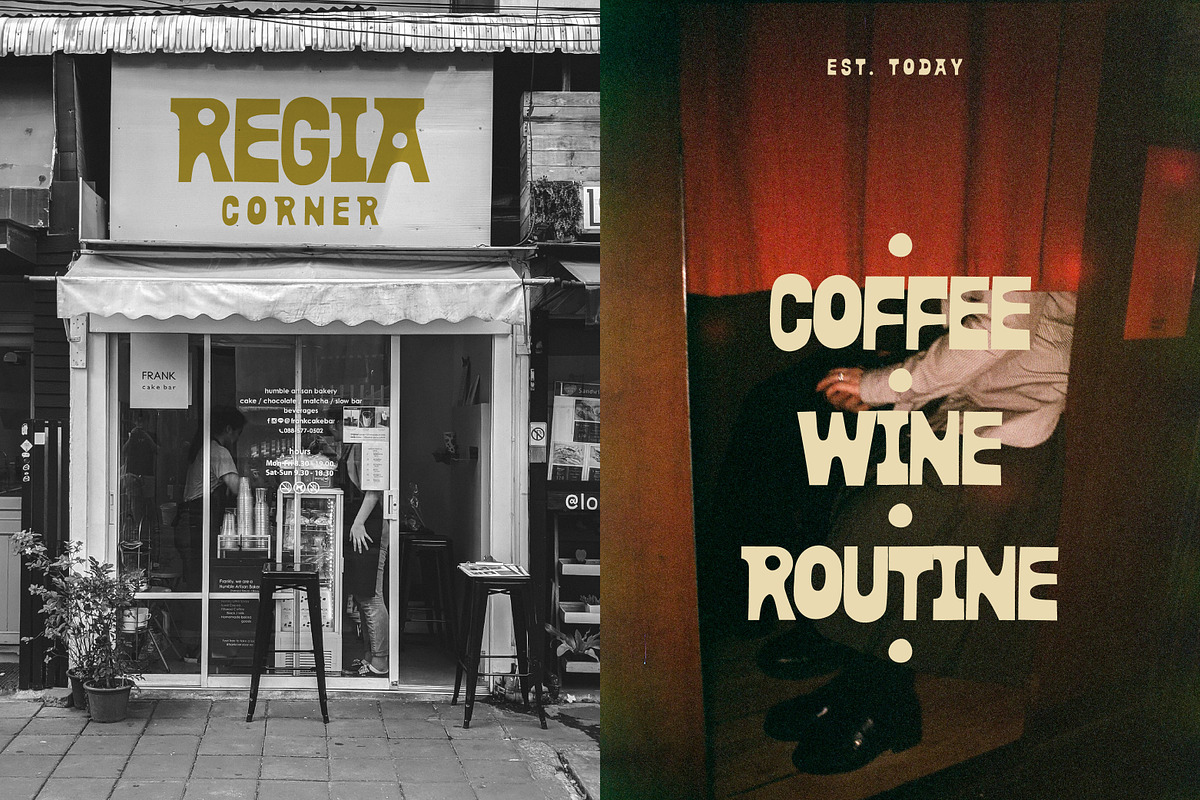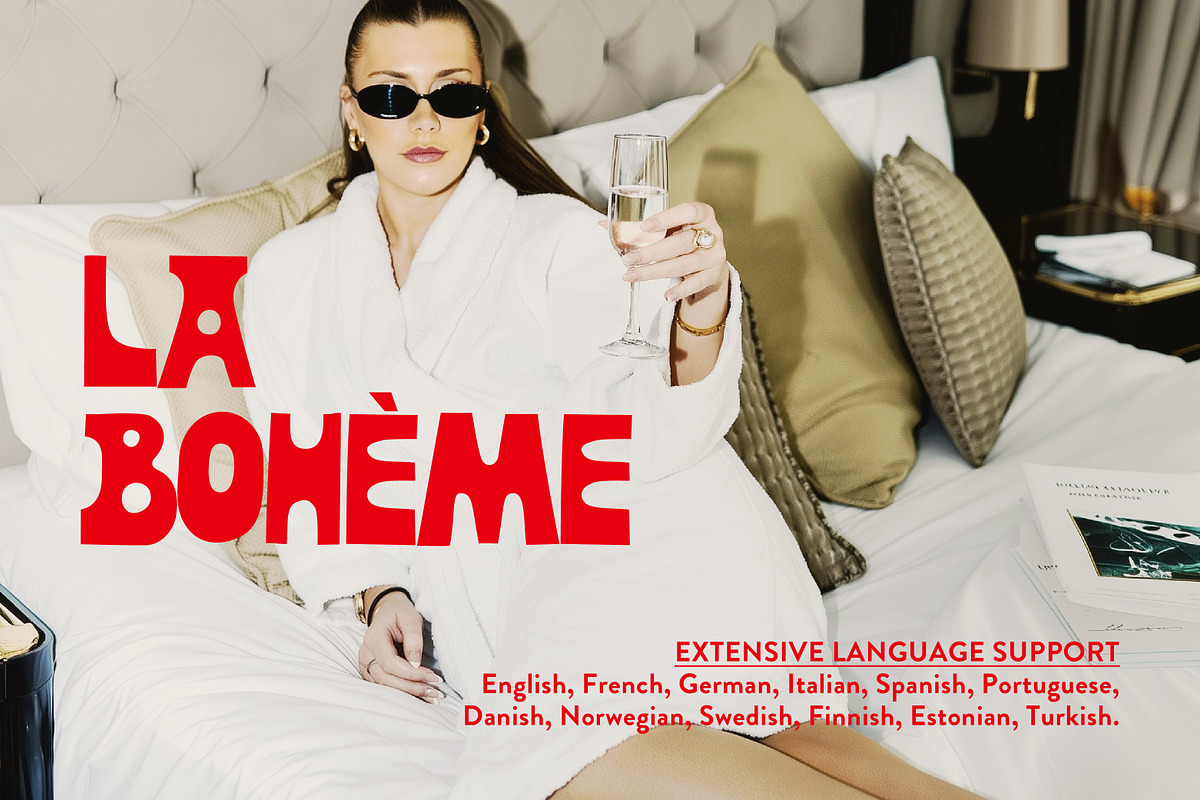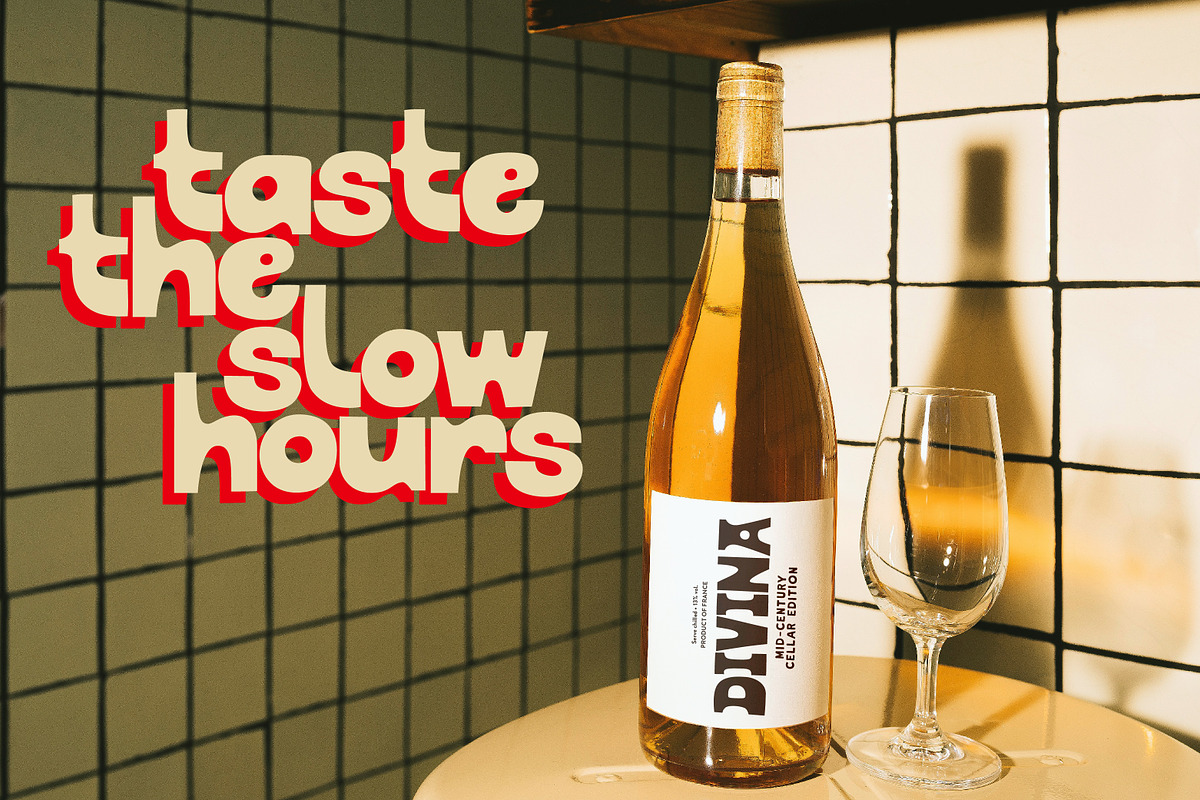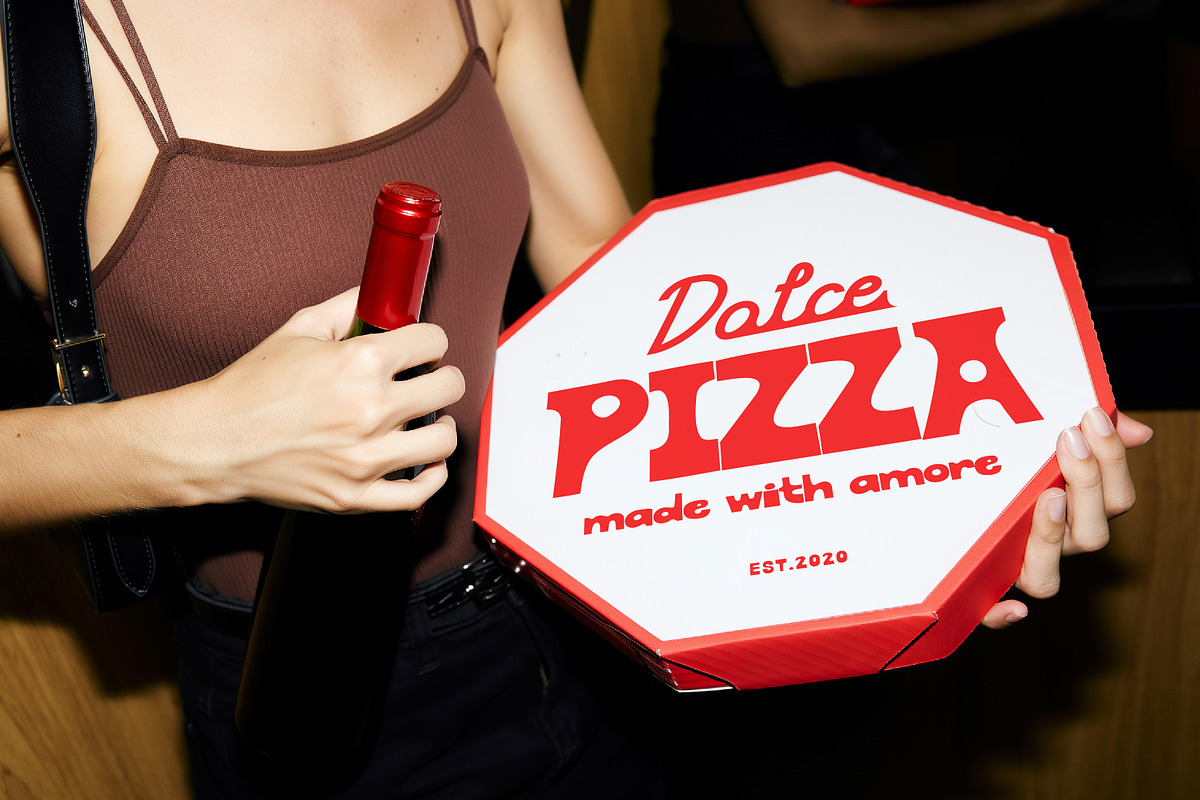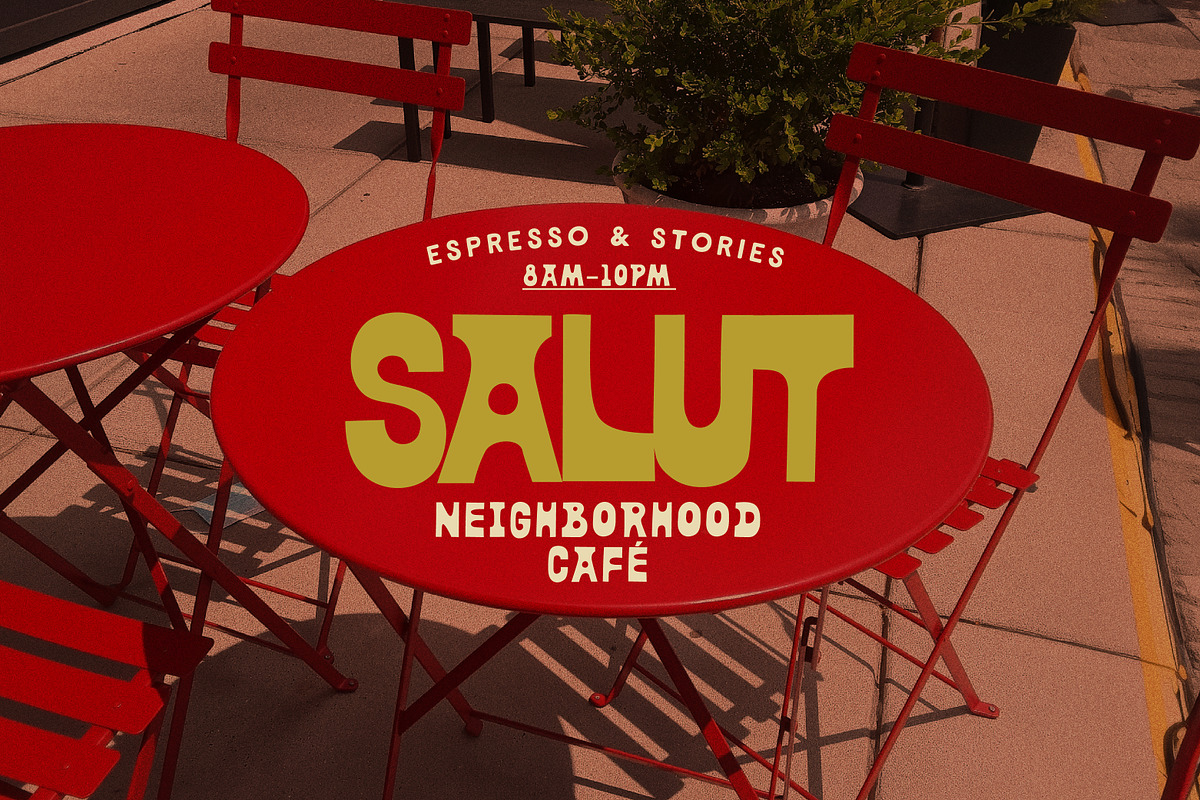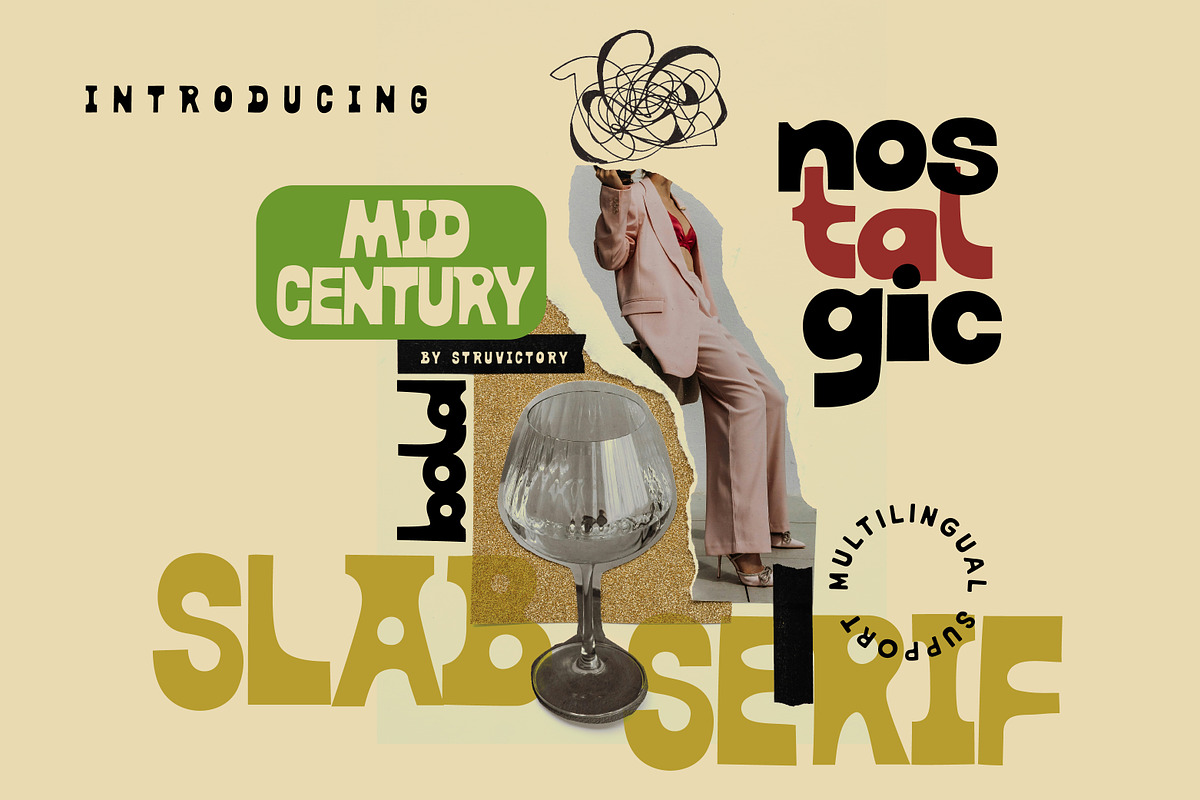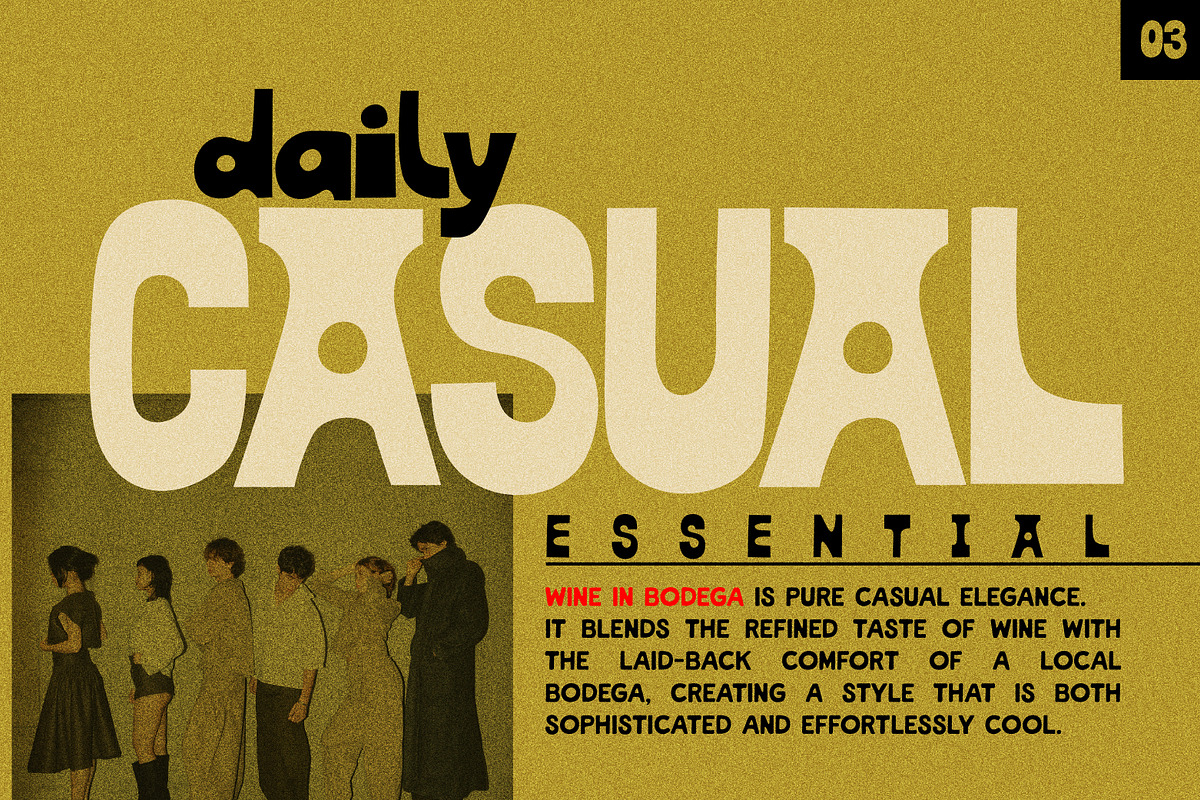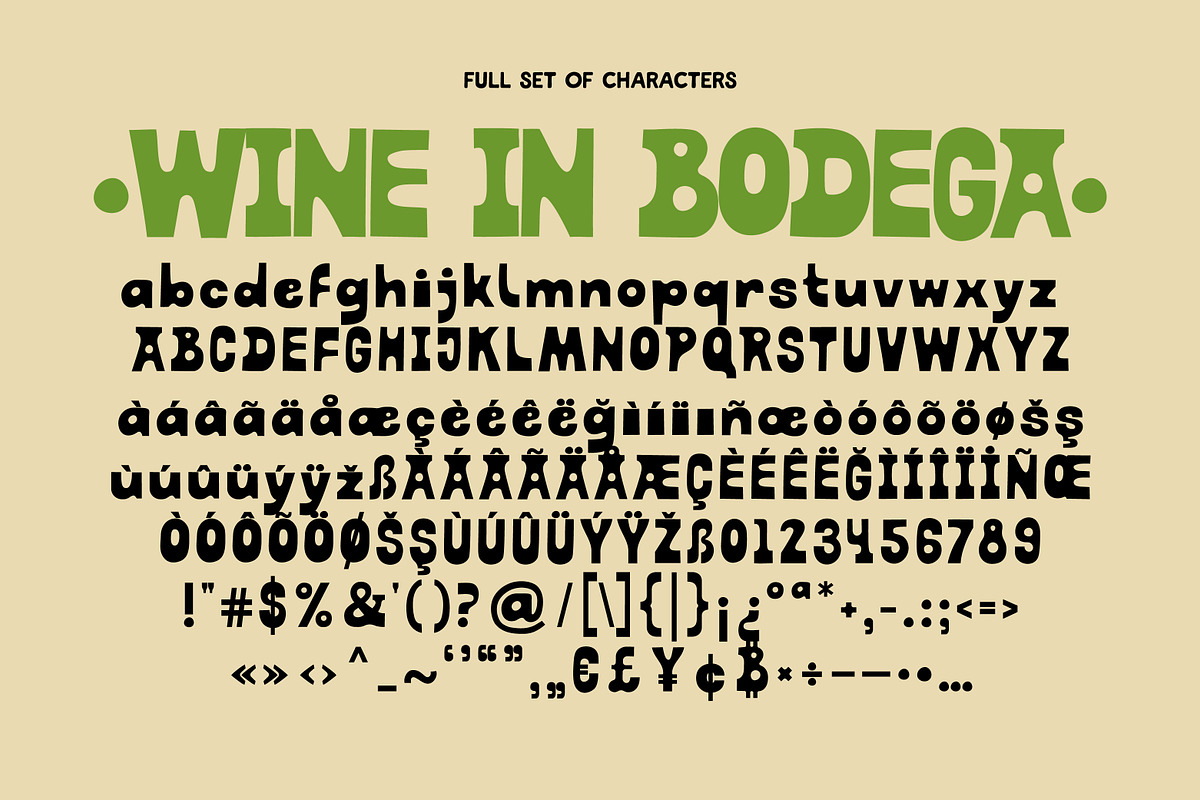
Wine in Bodega Mid-century Display
Wine in Bodega is a mid-century inspired display font that captures the effortless charm of everyday sophistication. With its bold curves, relaxed proportions, and subtle retro flavor, it evokes the cozy elegance of vintage cafés, boutique signage, and classic wine labels. Perfect for logos, menus, packaging, posters, and lifestyle branding, this font blends nostalgia with a modern casual feel — refined yet approachable, stylish yet warm. Whether you’re designing for a local café, a creative studio, or a timeless print piece, Wine in Bodega brings that easy-going mid-century mood that feels both familiar and refreshingly new.
Wine in Bodega supports the most popular latin-based languages, you can check the symbol you need by typing a couple of words in the font preview box.